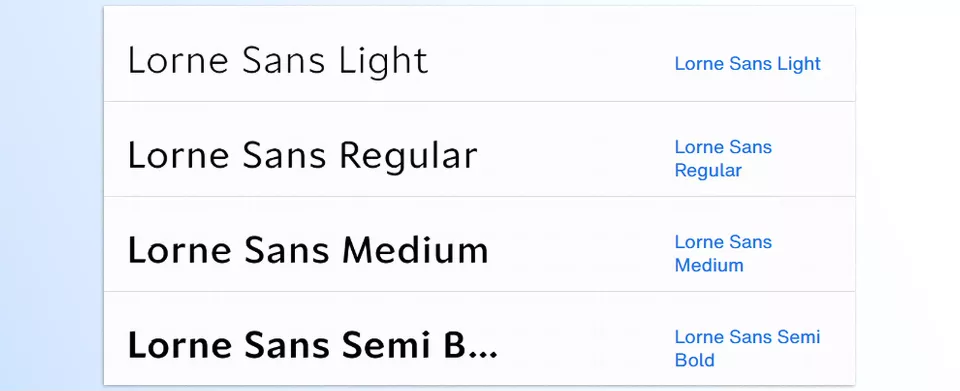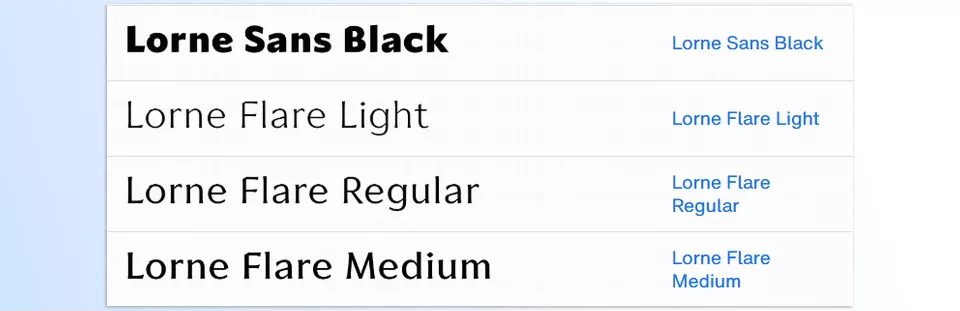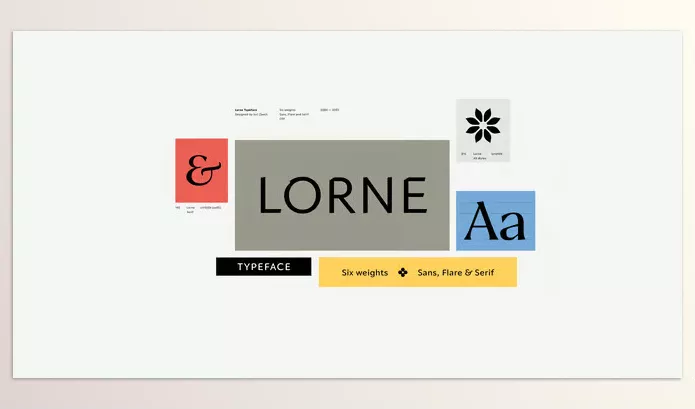
Lorne Font Family is a stunningly sophisticated font family that features beautifully carved letters alongside classic calligraphic elements. Lorne is available in three distinct styles (Sans, Flare, and Serif), making it stand out with its six weights from Light to Black which are perfect for design projects ranging from bold branding, editorial layouts, and artistic one-offs.
Juri Zaech – Lorne Font Family Features
• OpenType Features: Supports caps for Celtic, styled alternates such as the double-storey ‘g’ and alternate ampersands increases flexibility.
• Character Set: Covers over 200 languages based on the Latin alphabet and offers great freedom in typography.
• Calligraphic Details: Features such as italicized flared serifs and terminals further increase and balance their expressiveness and class.
• Variable Font: Now offered as a single, unified variable font, making it easy to use across multiple design systems.
• Kerned for Precision: The family exhibits precise kerning with optimal spacing within each weight and style, enhancing readability.
Image 1: A timeless blend of calligraphic elegance and modern design, perfect for impactful branding projects.
Lorne Font Family - A timeless blend of calligraphic elegance and modern design, perfect for impactful branding projects.
Image 2: Designed to shine in editorial and creative works, this versatile type family adapts seamlessly to a range of applications.
Lorne Font Family - Designed to shine in editorial and creative works, this versatile type family adapts seamlessly to a range of applications.